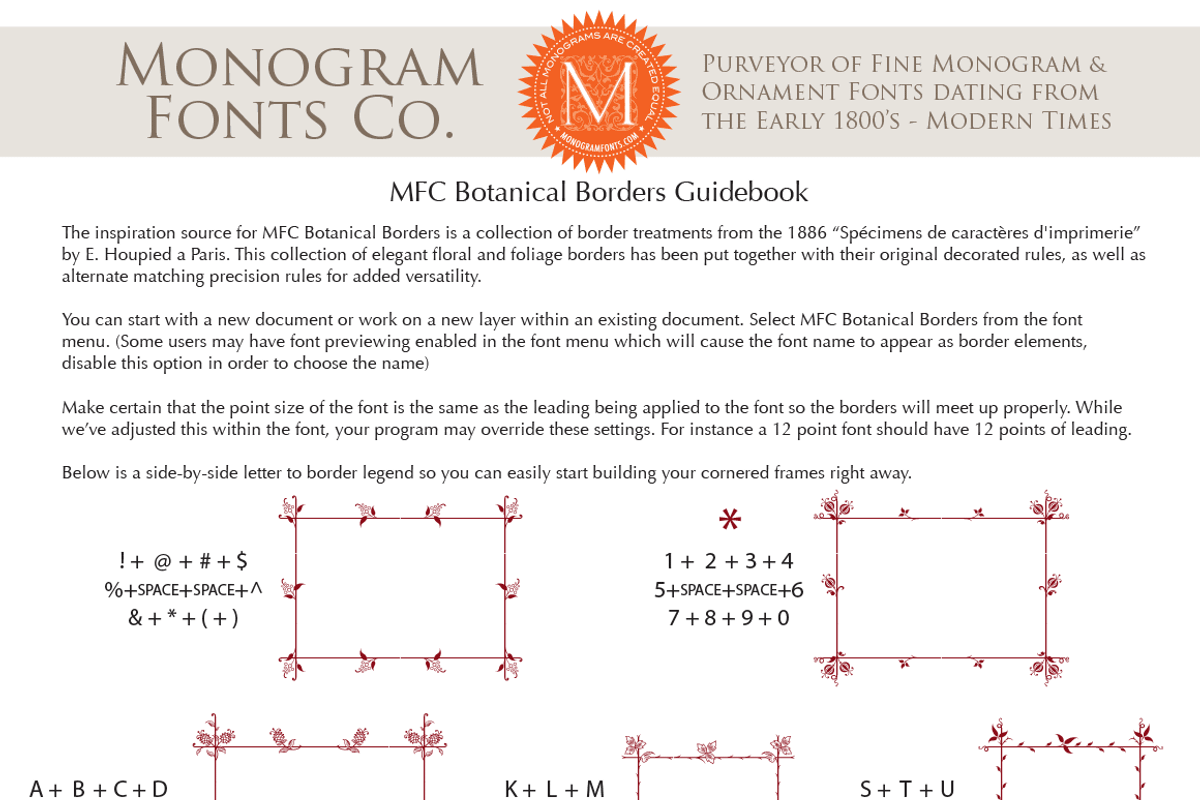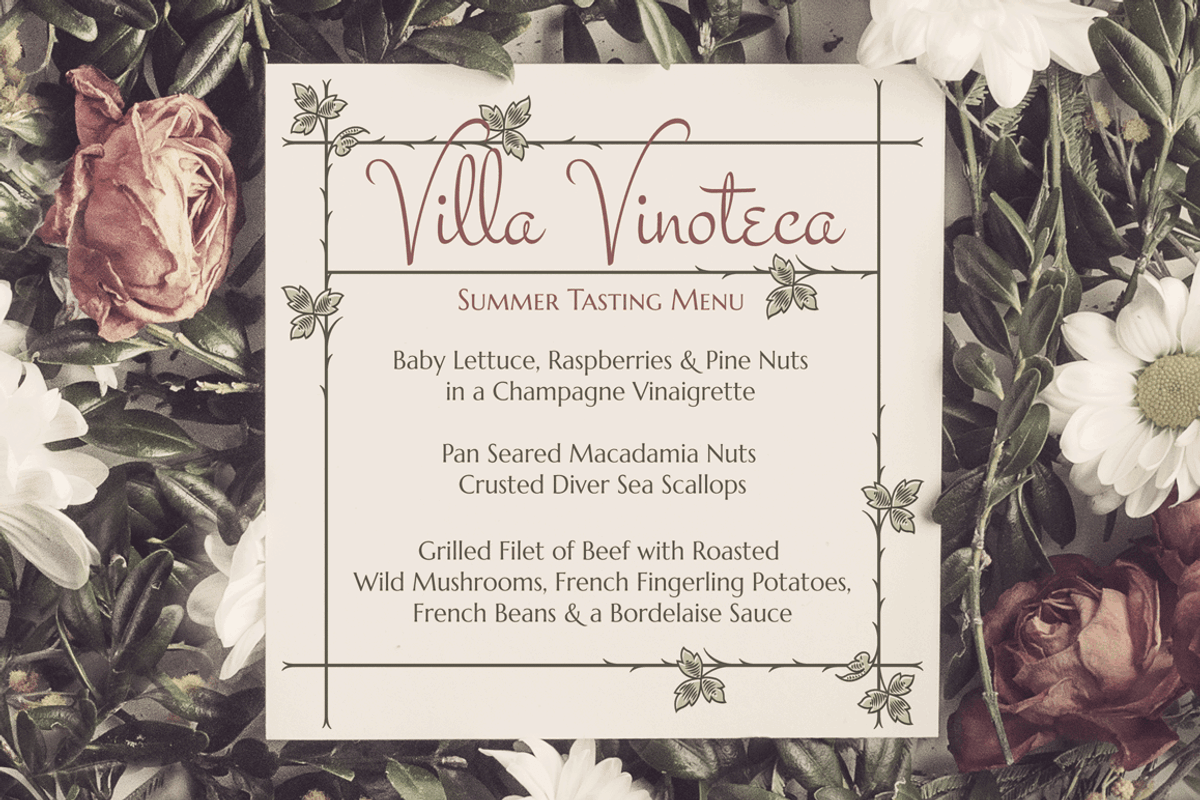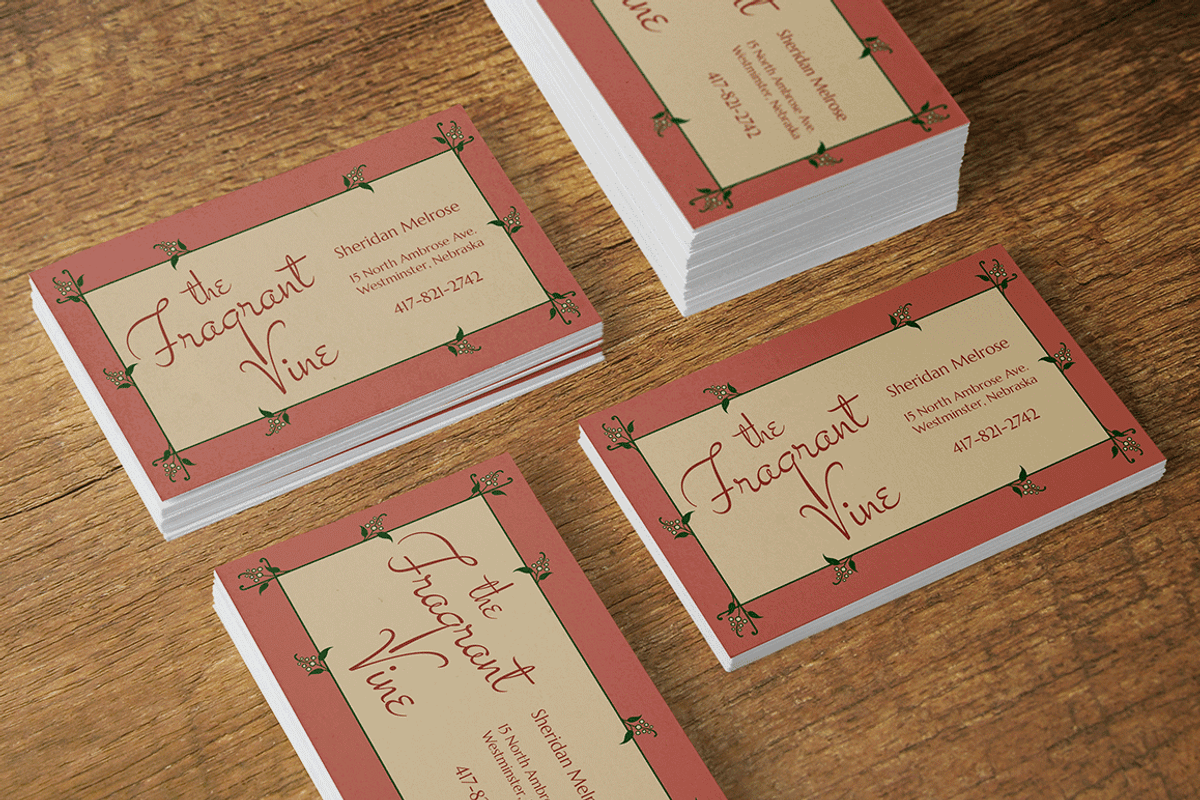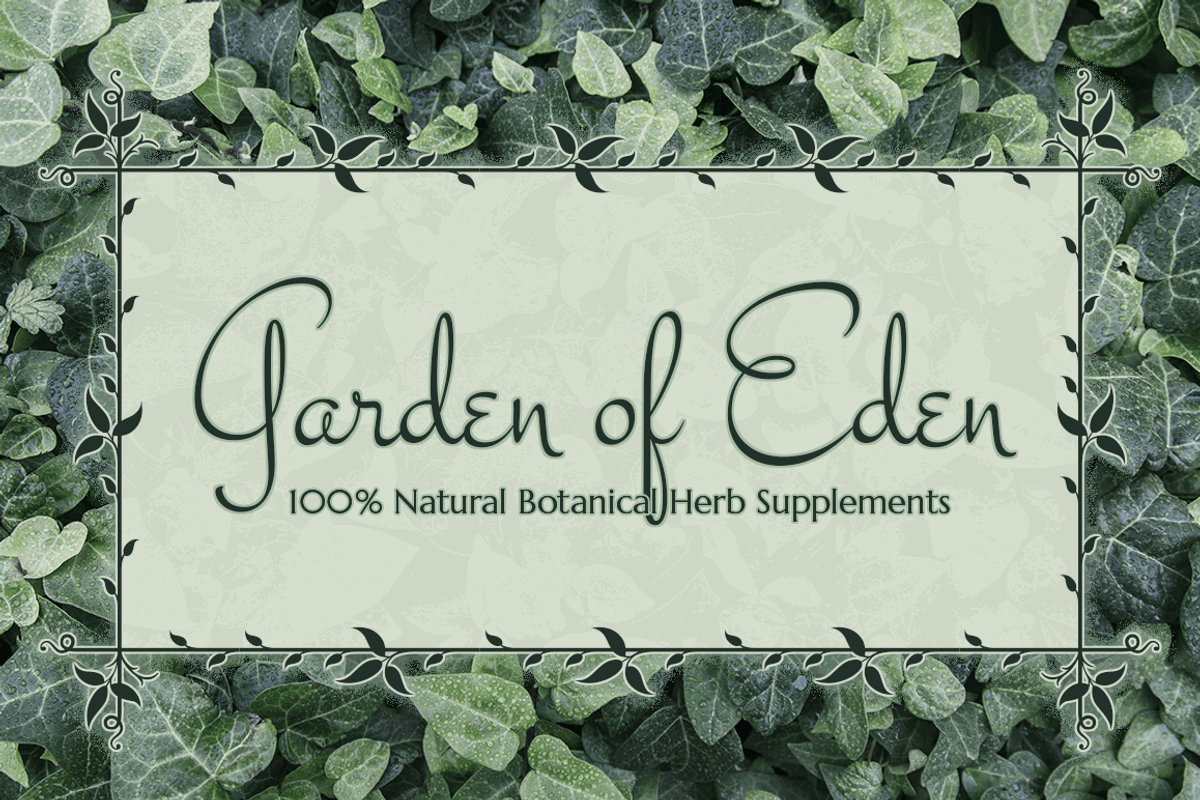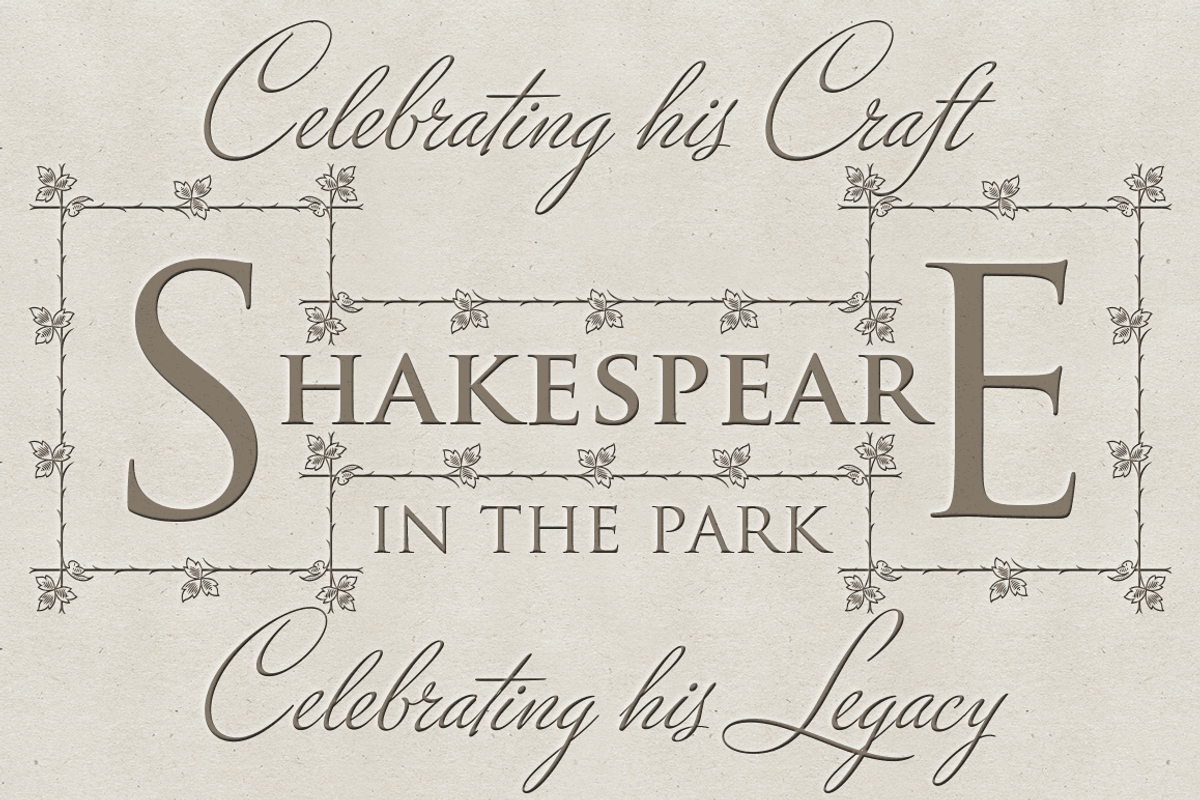
MFC Botanical Borders
MFC Botanical Borders by Monogram Fonts Co. is a font selected for branding, posters, packaging, typography.
- This collection of elegant floral and foliage borders has been put together with their original decorated rules, as well as alternate matchi
Why MFC Botanical Borders is worth a look
MFC Botanical Borders by Monogram Fonts Co. fits naturally into Branding, posters, packaging, typography.